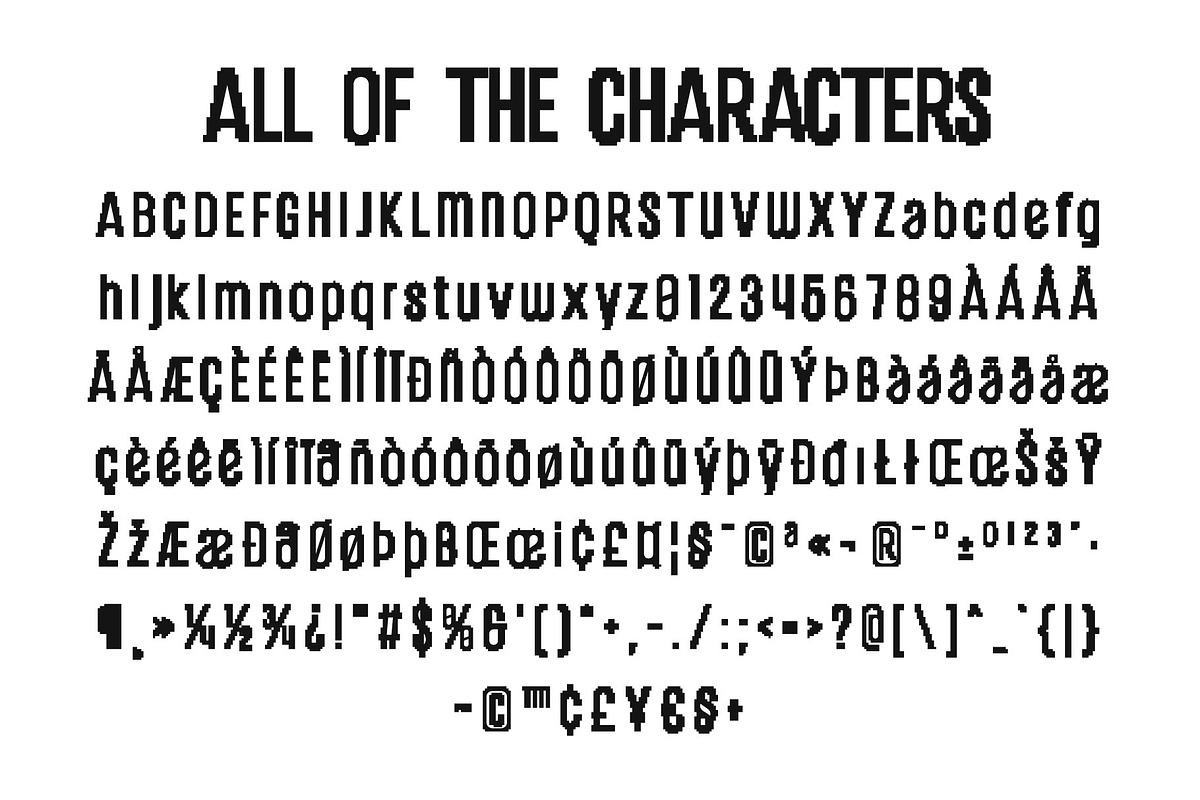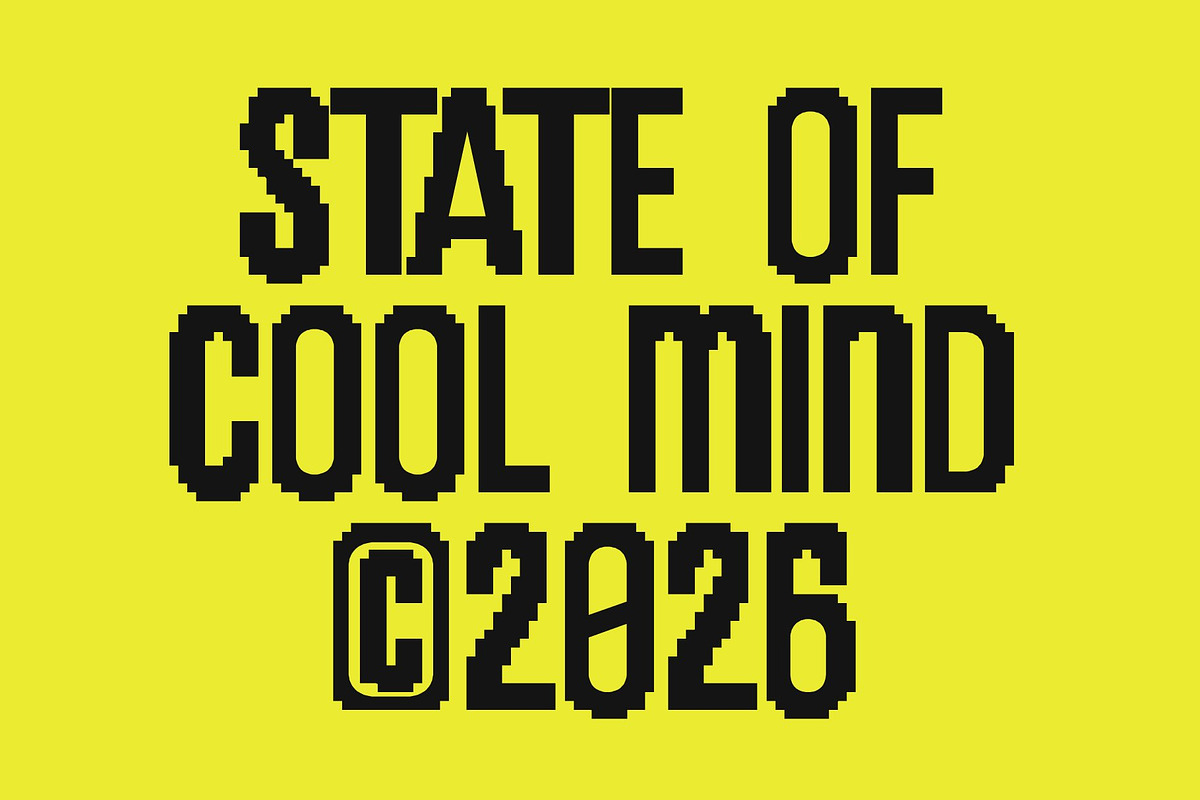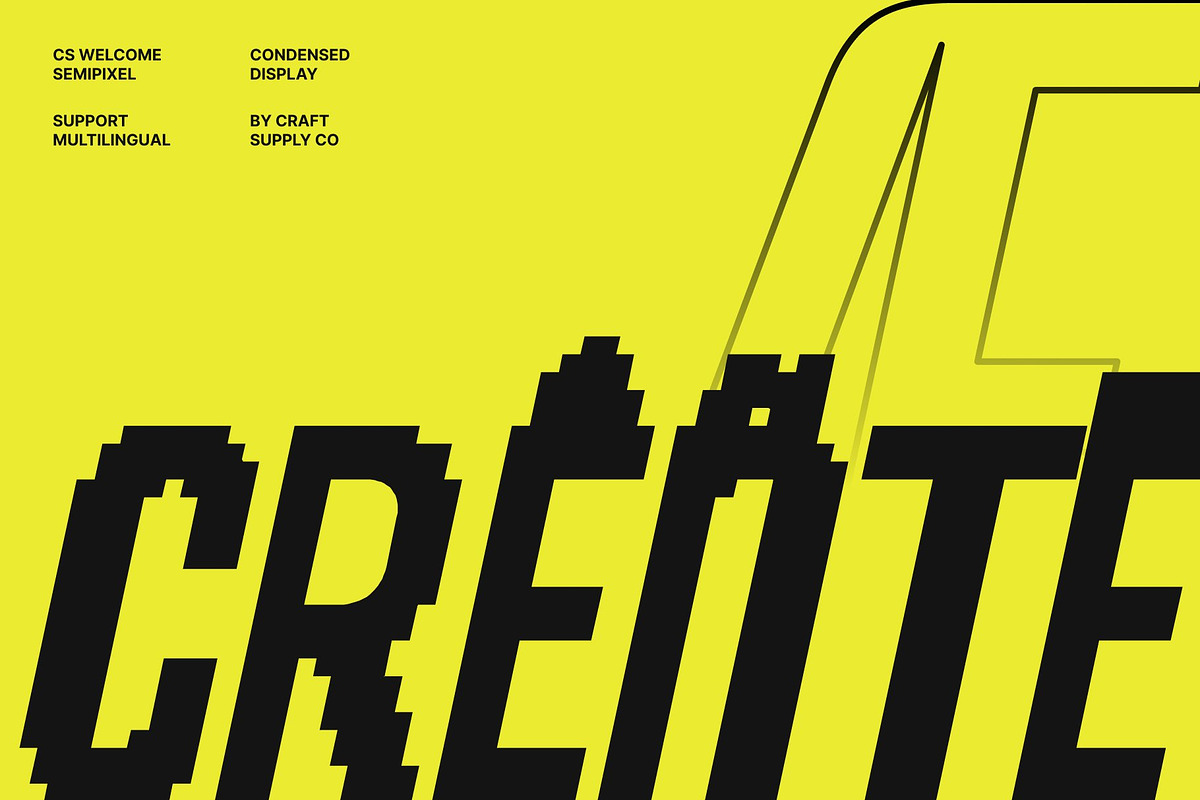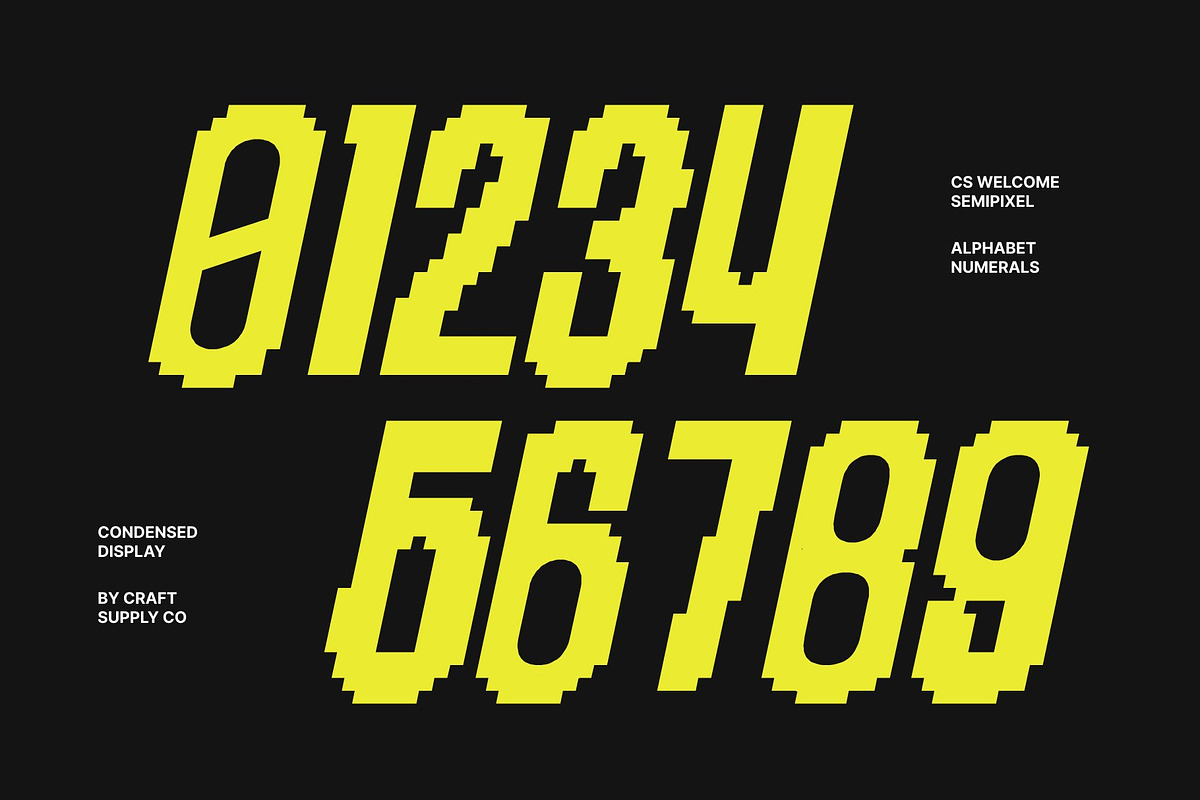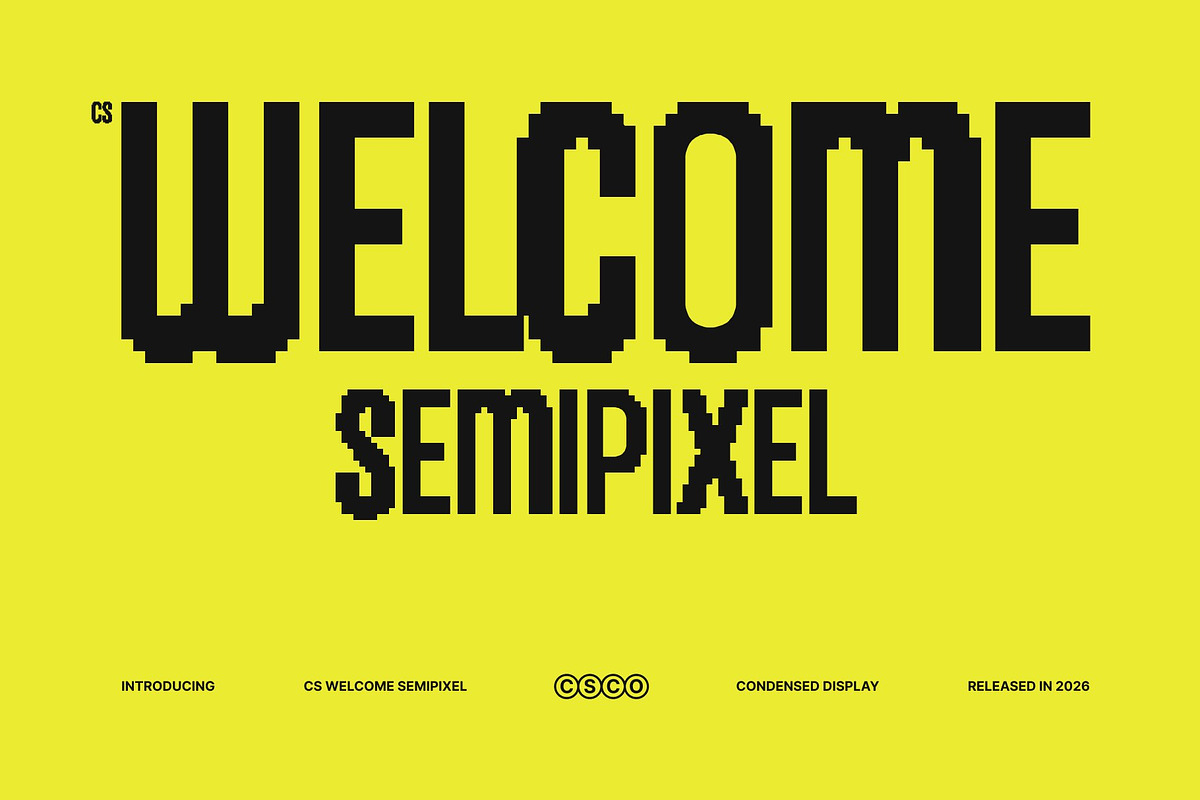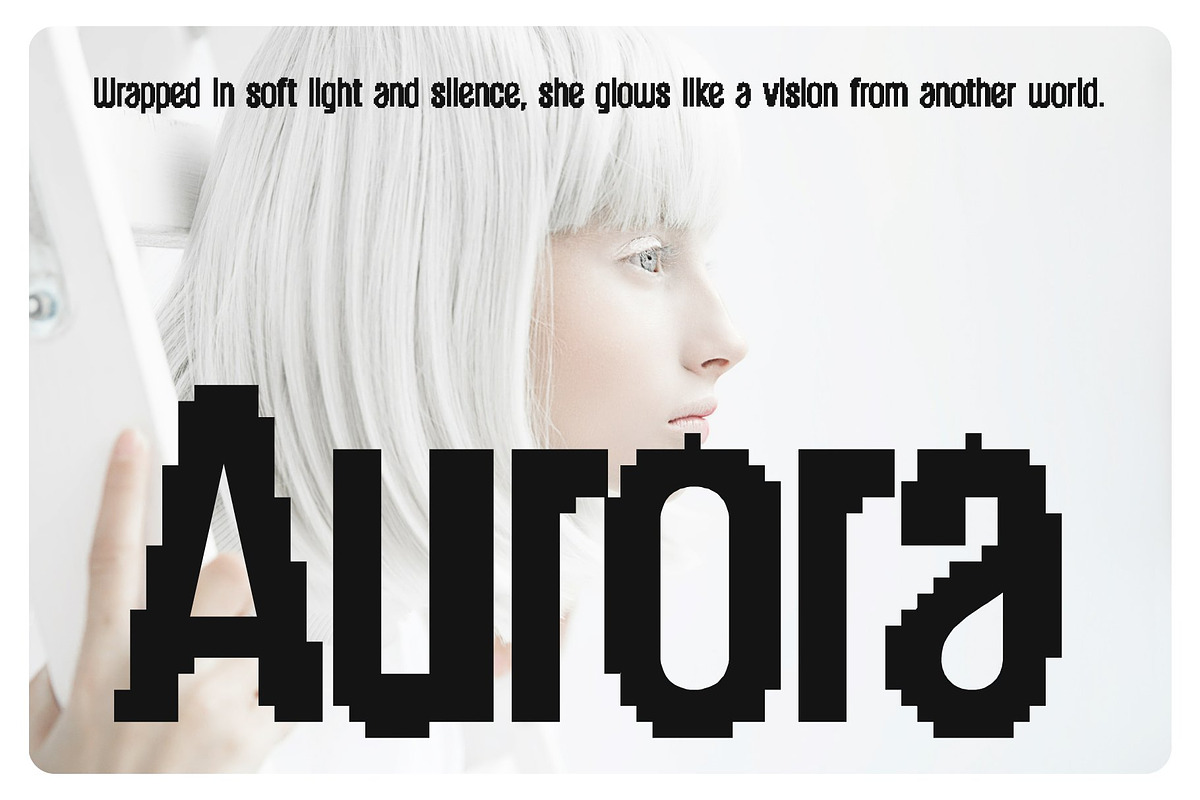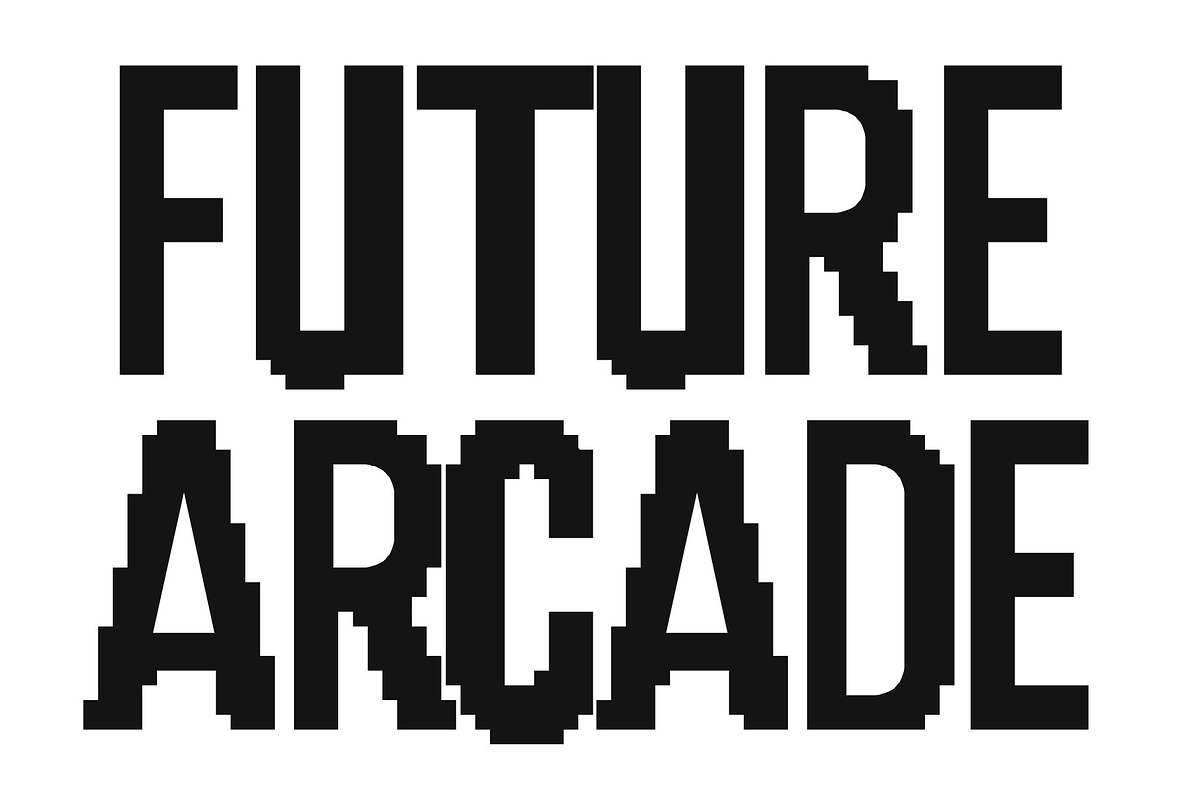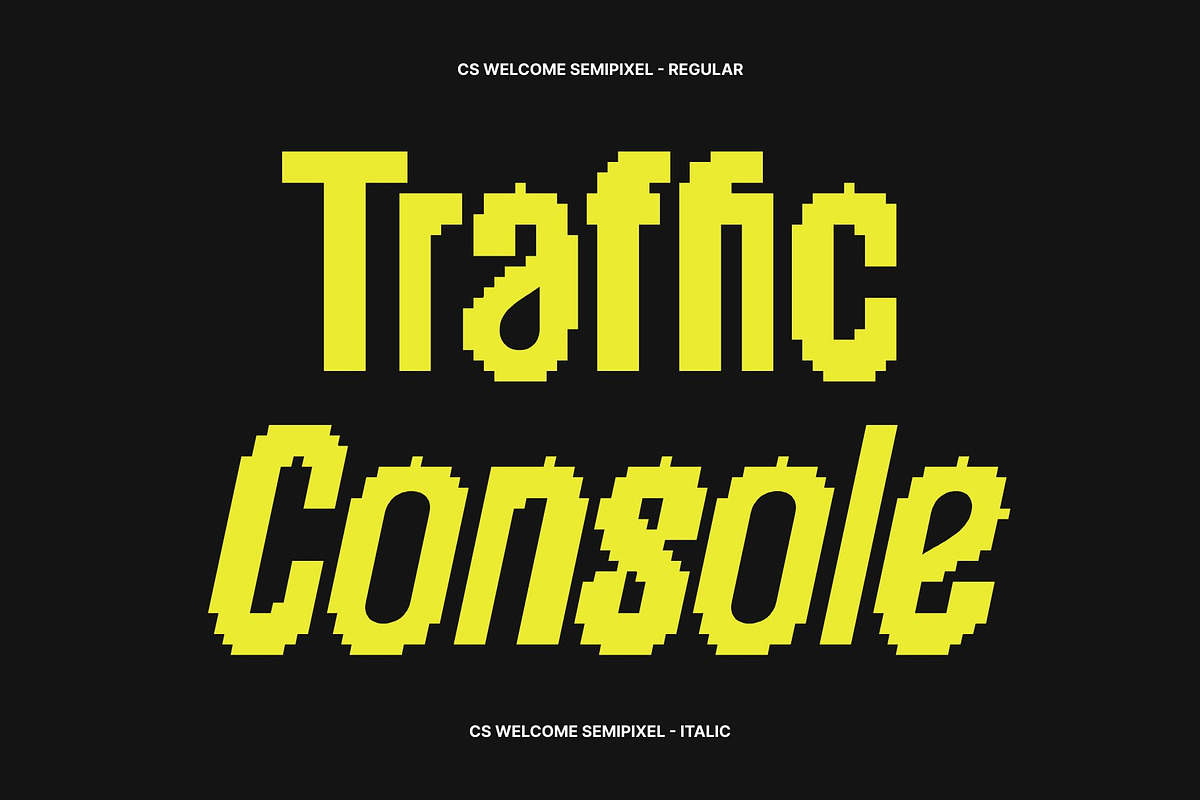
CS Welcome Semipixel
CS Welcome Semipixel – Bold Condensed Sans Serif Font: Where Industrial Power Meets Smooth Digital Precision
Compact Bold Forms with Commanding Modern Presence This is a bold condensed sans serif font designed to transform headlines into strong and commanding visual statements. Its compact proportions and industrial-inspired personality create a powerful appearance filled with confidence, energy, and modern urban character. Every letter is crafted to maximize impact in limited spaces while maintaining clarity and readability.
Semipixel Design with Smooth Pixel Aesthetic Combining pixel-inspired square forms with modern curves and refined details, this font delivers a smoother and more contemporary appearance than traditional rigid pixel fonts. The semipixel construction softens the geometric structure while preserving its retro-digital essence, creating a balanced fusion of futuristic technology and clean modern typography.
Industrial Futurism with Dynamic Urban Energy Blending condensed modern typography with semipixel refinement, this font creates a typographic identity that feels industrial, technological, and visually immersive. Its bold geometric forms and smooth digital styling evoke industrial techno culture, futuristic branding systems, and experimental visual design.
Perfect for Logos, Posters, and Techno Branding This font is perfect for logos, headlines, industrial techno visuals, branding, posters, apparel graphics, streaming visuals, and futuristic promotional campaigns. Its compact semipixel forms make it ideal for merchandise, packaging, signage, event graphics, and modern visual identities that demand a strong and futuristic digital appearance.
CS Welcome Semipixel Regular
CS Welcome Semipixel Italic